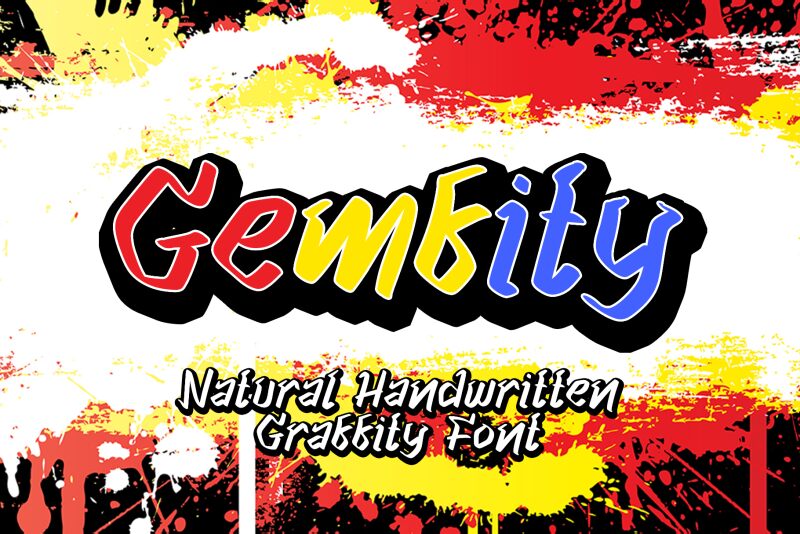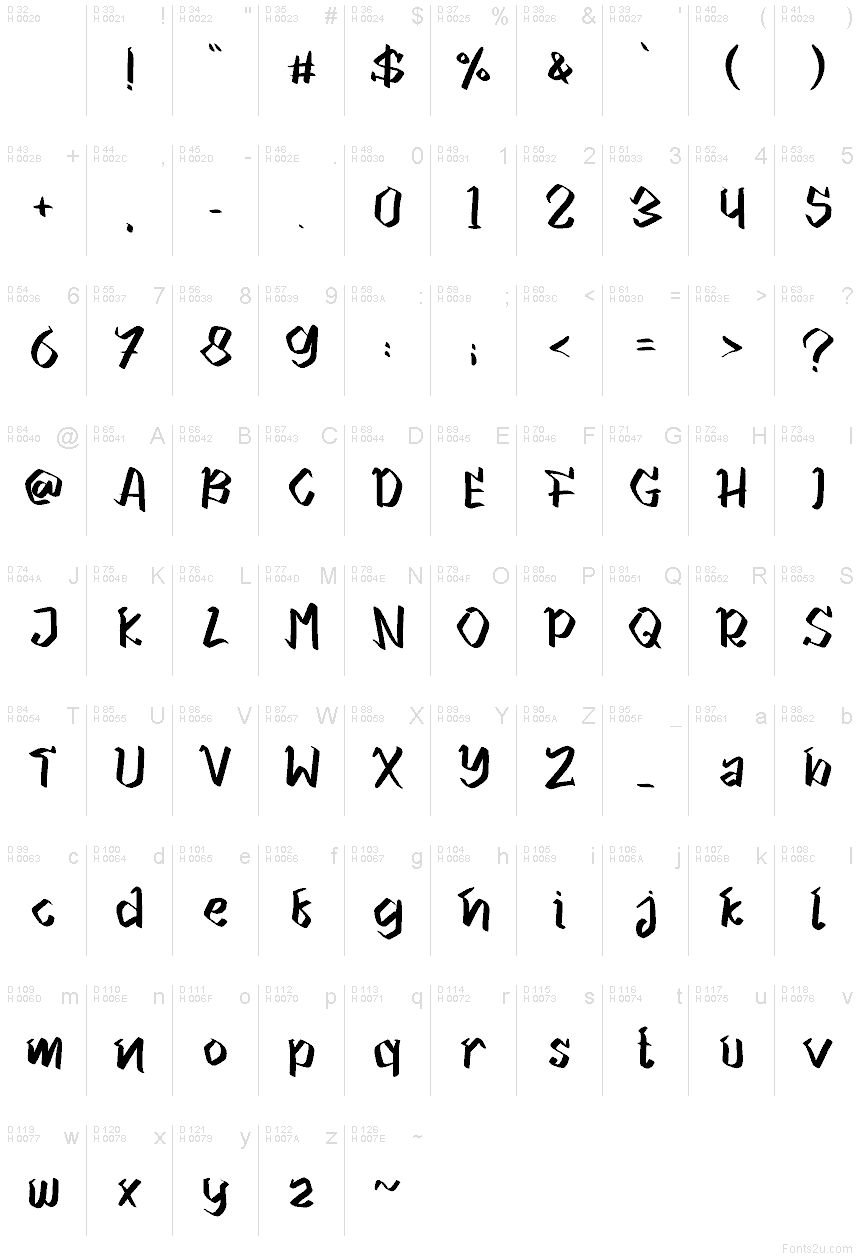
Gemfity font by Letterafa Studio is a free graffiti typeface. Its strokes feel slashed with a chisel-tip marker-angled, inky, and slightly ragged at the edges-so letters lock together with a quick, off-the-wrist energy. The rhythm leans forward, with sharp cuts and compressed counters that read loud even at mid sizes, giving headlines a raw, street-calligraphy bite.
Using Gemfity, you get instant grit for album art, streetwear logos, skate brands, event posters, game titles, stickers, and bold YouTube thumbnails. The spacing stays tight without tangling, so words hit as a single mark. For balance, pair this free font with a plain, light-weight sans in the body copy, or set Gemfity larger with generous line spacing to let the texture breathe.